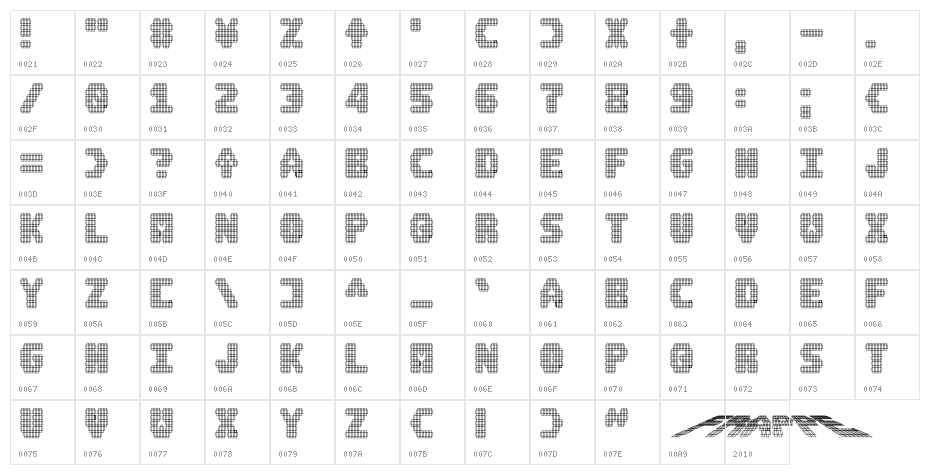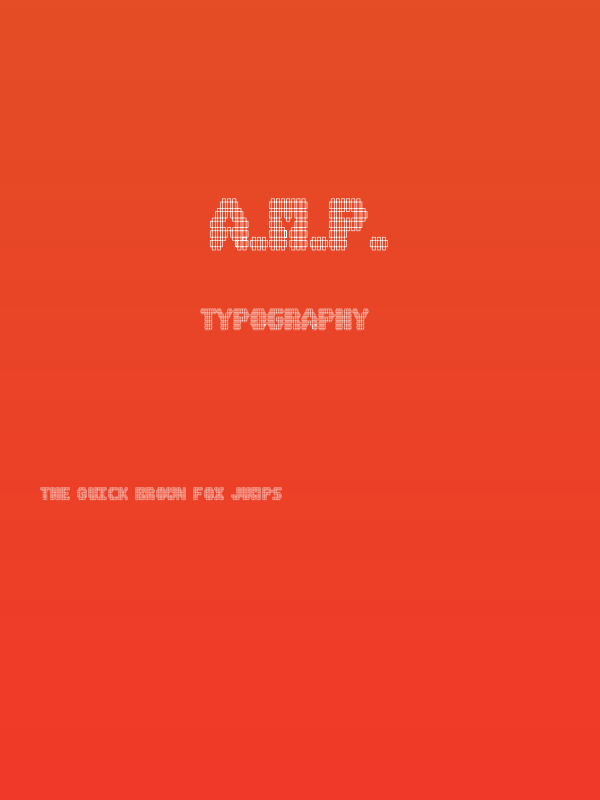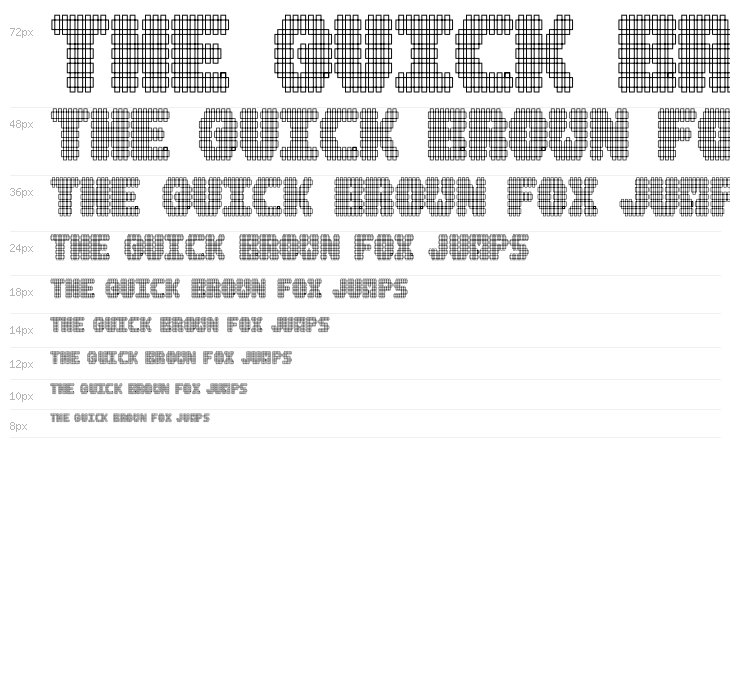
A.M.P. Font
A.M.P. Description
This font features a unique grid-like pattern, where each character is constructed from a series of small squares, creating a pixelated effect. The design is bold and eye-catching, making it ideal for digital and retro-themed projects. The uppercase and lowercase letters maintain a consistent style, with the grid pattern providing a sense of uniformity across all characters. Numbers and special characters are also included, following the same design principles. The overall look is modern and tech-inspired, suitable for projects that require a futuristic or digital aesthetic.
| Overall Style | Modern, Digital |
| Use Case | Headlines, Logos, Digital Art |
| Proposed Projects | Ideal for digital art, video game graphics, tech-themed posters, and retro-style branding. |